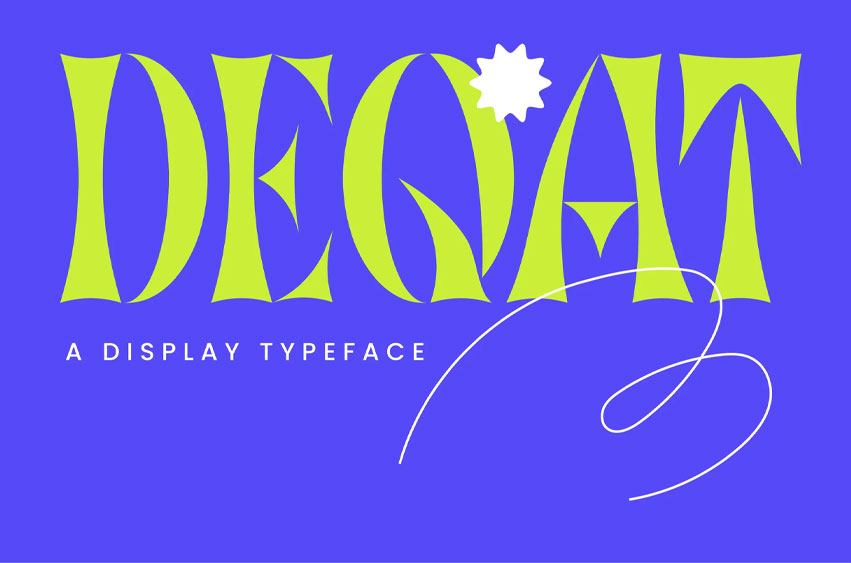
Deqat Font Define your visual identity with bold precision using DEQAT, a striking and highly stylized display typeface. This unique font is meticulously designed with sharp, angular cuts and an elegant, somewhat experimental aesthetic, making it perfect for projects that demand a strong, modern, and distinctive visual statement. DEQAT is ideal for creating impactful headlines, compelling branding, and unforgettable graphic elements.
DEQAT’s all-caps design commands attention, with each character featuring dramatic serifs and geometric forms that converge into powerful points. Its unconventional yet balanced structure makes it incredibly effective for standout applications: think contemporary branding, editorial layouts, striking poster designs, distinctive album art, unique product packaging, and event promotions that need to look cutting-edge. Its artistic flair ensures your text is not just read, but experienced as a key design element.
This font comes equipped with a comprehensive all-caps character set, including uppercase letters, numbers (0-9), and essential punctuation. Furthermore, DEQAT boasts multilingual support, allowing your designs to reach a global audience with consistent, high-impact style. Designed for maximum visual appeal, DEQAT is ready to infuse your creations with an unparalleled sense of sophistication and modern artistry.
• Display Typeface: Designed for high-impact headlines and prominent text.
• Sharp Angular Cuts: Unique, precise, and modern geometric aesthetic.
• All Caps Design: Commands attention with strong, uppercase characters.
• Complete Character Set: Includes uppercase, numbers (0-9), and punctuation.
• Multilingual Support: Broad compatibility for global design projects.
• Versatile Usage: Perfect for branding, logos, posters, editorial, and packaging.
• Modern & Artistic Flair: Creates a sophisticated and cutting-edge visual identity.